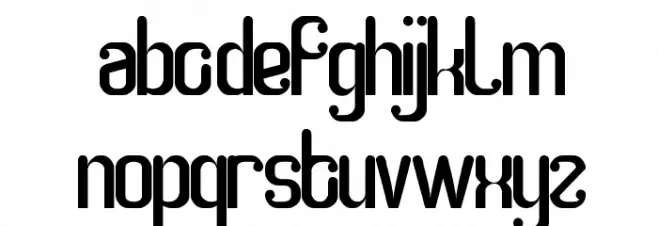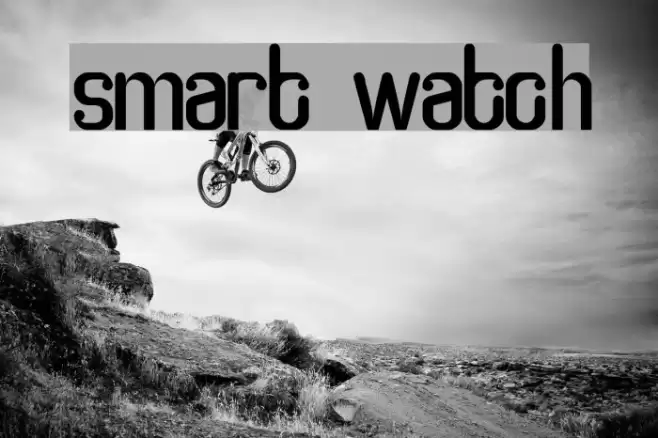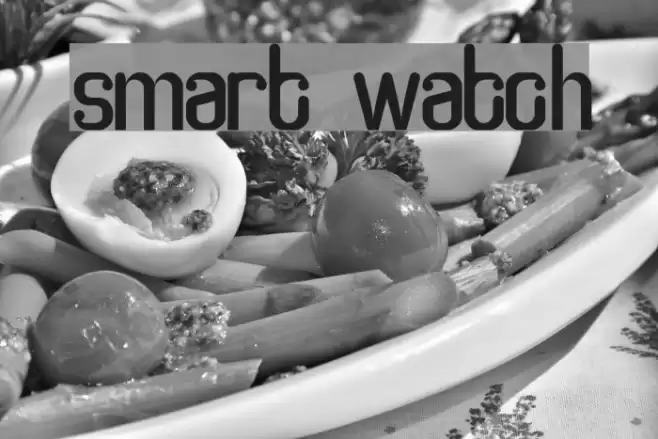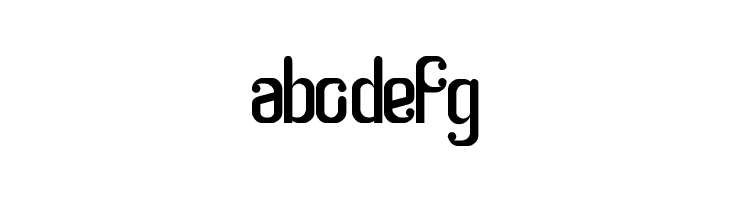
smart watch Font
smart watch Description
This font features a modern and geometric design with rounded edges and consistent stroke thickness. The characters are uniformly structured, giving a clean and organized appearance. The lowercase letters have a unique style with a slight retro feel, while maintaining a contemporary look. The font's design is both playful and professional, making it versatile for various applications. It is particularly suitable for digital displays and interfaces due to its clarity and readability. The uniformity in character height and width ensures a balanced visual flow, making it ideal for both short and long text passages.
A modern, geometric font with rounded edges and consistent strokes.
- Proposed Projects: Ideal for digital interfaces, branding, and modern advertising campaigns.
- Use Case: Digital displays, branding, advertising.